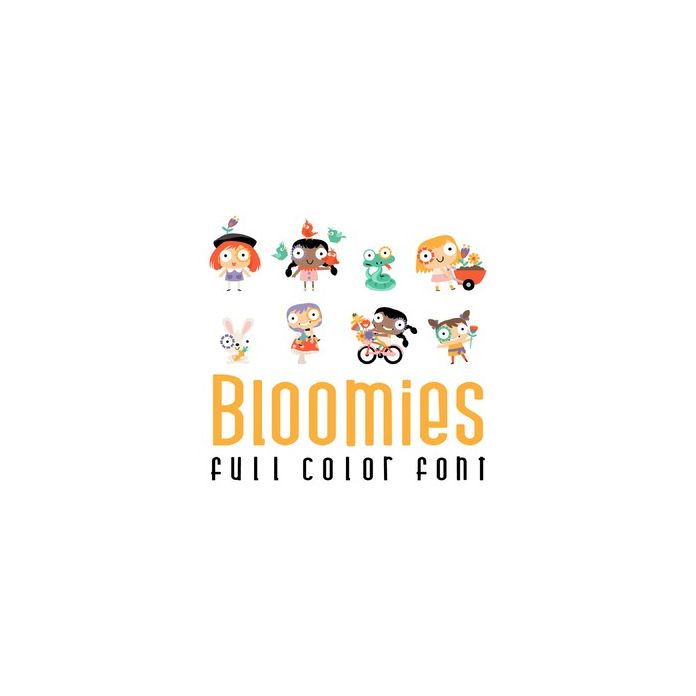
This adorable full color doodlebat font features adorable floral eyed girls and animals perfect for Spring. Use this color font to create cards, crafts, gifts, decor, scrap book pages, planner stickers and more!